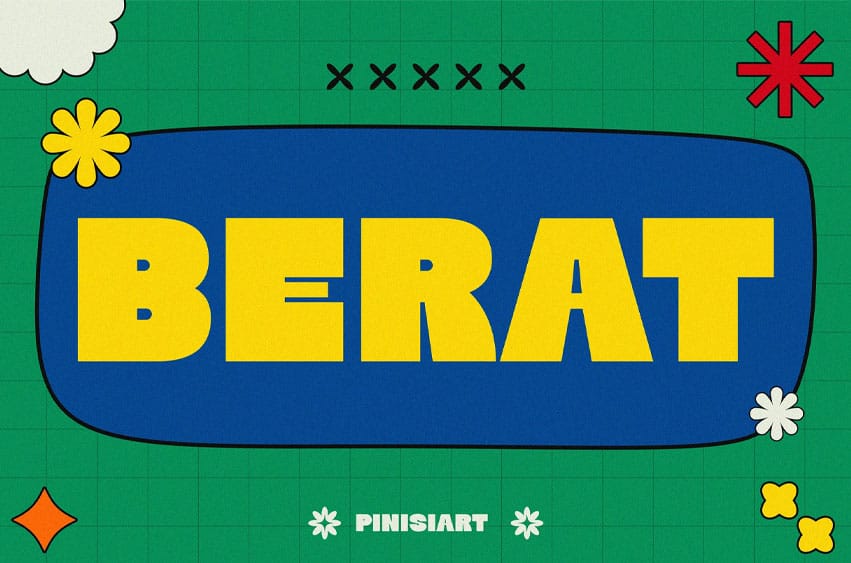
Berat Font is a thick, chunky retro sans with exaggerated weight and an unapologetic presence. Its blocky form, playful proportions, and tight curves are perfect for youth-centric fashion, retro revival promotions, school campaigns, and anything that wants to shout without screaming.
The letterforms blend 70s poster boldness with Gen Z aesthetics, making it ideal for fashion brands, Instagram promos, sale flyers, sticker packs, or branded merch. BERAT gives every message more punch, energy, and attitude.
Say it loud, wear it proud. BERAT helps your words make a statement, whether you’re pushing new drops, calling out fast fashion, or launching something bold. It’s made to move crowds—digitally and IRL.
- Bold Retro Sans Serif – Designed to be loud, confident, and clear at all sizes
- Youth-Centered Styling – Fits TikTok brands, IG shops, school promos, music drops, and more
- Great for Short Words & Punchy Phrases – Taglines, buttons, flyers, sale posters
- Retro-Modern Fusion – 70s inspiration meets current fashion flyer design
- Works on Bright Colors & Texture – Pops effortlessly on vibrant backgrounds and grain overlays